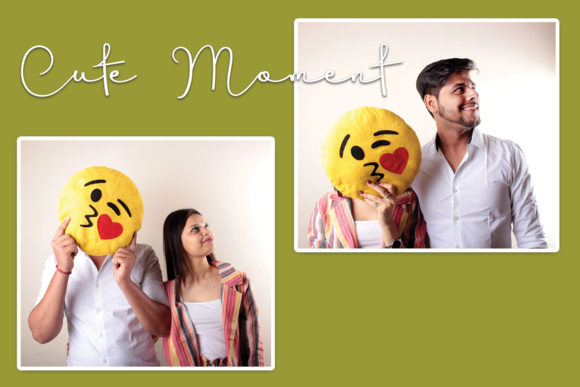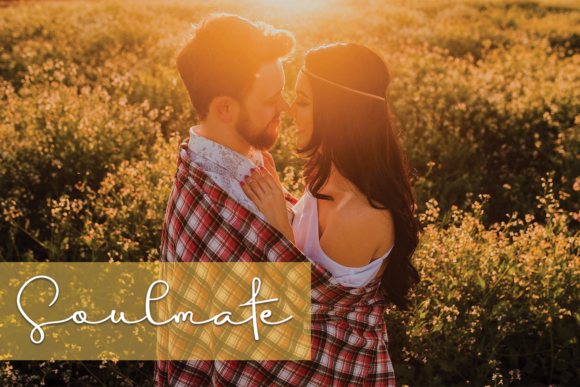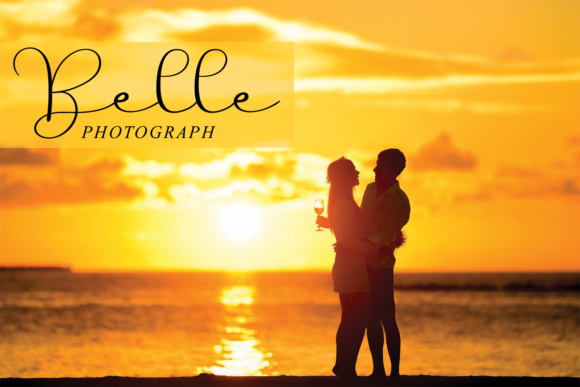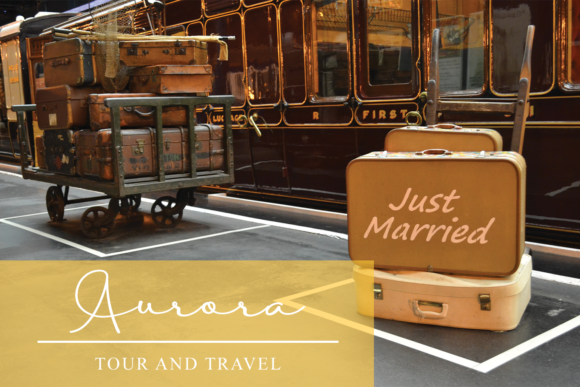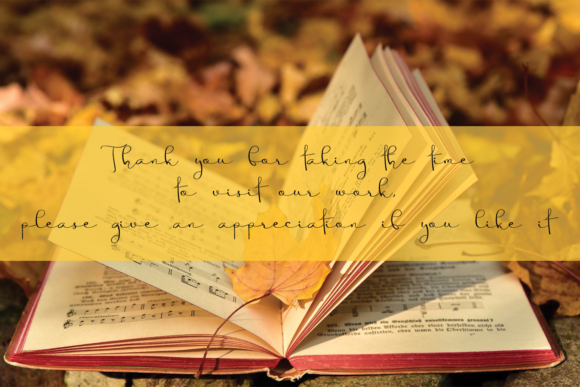
Introduction to Pure Love Font
Have you ever found yourself scribbling love notes to your partner on a rainy day, using your favorite pen and paper? It’s moments like these that remind us of the beauty of handwritten love. As designers, we’re always on the lookout for the perfect font to capture the essence of romance and affection. That’s where the Pure Love Font comes in – a sweet and delicate handwritten font that’s sure to add a touch of whimsy to any design project.
Whether you’re working on a wedding invitation, a birthday card, or any other creative project that requires a romantic touch, the Pure Love Font is an invaluable resource. Its high-quality design and transparent background make it easy to use, and the best part? It’s free to download, making it accessible to designers of all levels.
With its dainty and joyful feel, the Pure Love Font is a must-have for any designer looking to add a personal touch to their work. In this article, we’ll take a closer look at this beautiful font and explore its many uses in design projects.
Key Features of Pure Love Font
- High-quality font with a transparent background, ideal for creative projects and design resources.
- Comes in a single font size, making it easy to use in various design contexts.
- Designed with a clean and elegant style, suitable for a wide range of creative projects.
- Unique characteristics: cursive and script font styles, perfect for adding a touch of romance and elegance to your designs.
Honest Review: Pure Love Font
I recently had the chance to work with the Pure Love Font, and I must say it’s a lovely addition to any creative project. This font is perfect for designers who are looking for a free download with a high quality feel.
What works well with Pure Love Font is its transparent background, which makes it easy to layer over other design elements without any fuss. The font itself is elegant and sophisticated, making it perfect for a variety of projects, from wedding invitations to branding materials.
- ✨ Elegant and sophisticated design
- ✨ Perfect for transparent background designs
However, I did encounter a few limitations while working with the Pure Love Font. The font family is quite limited, and there are only a few styles to choose from. This may not be ideal for designers who need a lot of customization options.
- ⚠️ Limited font family
- ⚠️ Few style options available
Overall, I would recommend the Pure Love Font to designers who are looking for a high quality, free design resource. While it may have its limitations, it’s a great option for creative projects that require a touch of elegance and sophistication.
Pure Love Font
The Pure Love Font is a free download that can be used for any creative project. With its high quality design and transparent background, it’s perfect for adding a touch of elegance to your work.
Tips for Getting the Most Out of Pure Love Font
To get the most out of the Pure Love Font, use it in conjunction with other design elements that complement its elegant style. Experiment with different font sizes and colors to create a unique look.
The Pure Love Font is perfect for a variety of projects, including wedding invitations, birthday cards, and other special occasion designs. Its high quality design and transparent background make it a versatile design resource.